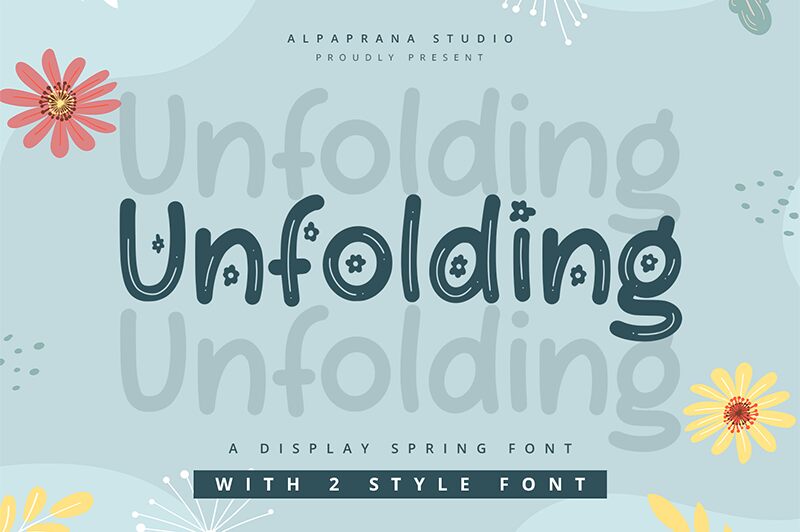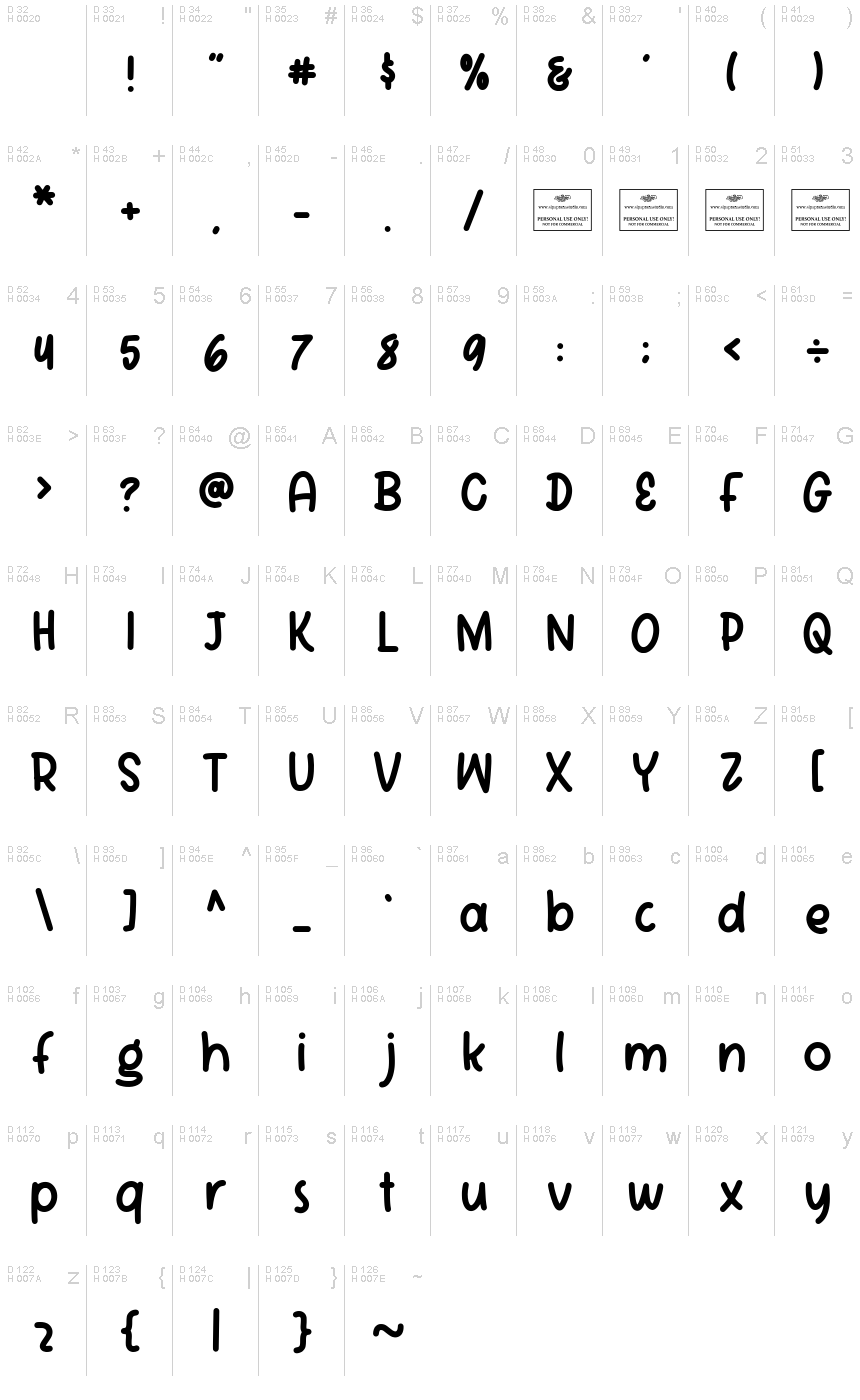
Unfolding
Unfolding font, crafted by Alpaprana Studio, captivates with its enchanting handwritten style that exudes warmth and personality. Each character flows gracefully, imbuing text with a sense of spontaneity and charm. The font showcases an inviting flair through its playful strokes and rounded edges, fostering a connection that feels personal and approachable.
Visually striking, Unfolding is ideal for creative projects where individuality matters-perfect for invitations, branding endeavors, or social media graphics. Its unique personality enables it to stand out in both print and digital contexts, allowing designers to convey emotion effortlessly. Embrace the allure of Unfolding as it transforms ordinary text into a delightful experience that resonates with audiences across various applications.